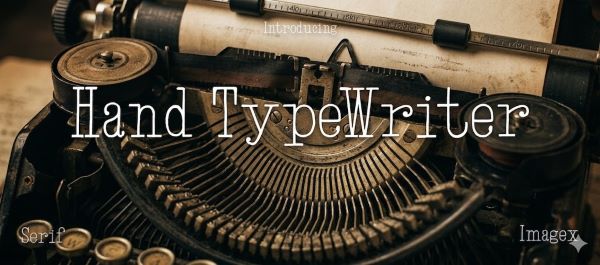
Hand TypeWriter Font
Hand TypeWriter by imagex is a free typewriter font with a warmly handmade quality — sitting at the crossroads of typewriter mechanical rhythm and hand-drawn organic variation, its slightly irregular letterforms feel as though they were both typed and touched by a human hand in the same motion. This typewriter font carries a casual, personal authenticity that suits journaling aesthetics, artisan branding, stationery, and informal editorial design. With 279,000+ downloads it has found a wide, appreciative audience. Free for personal use.